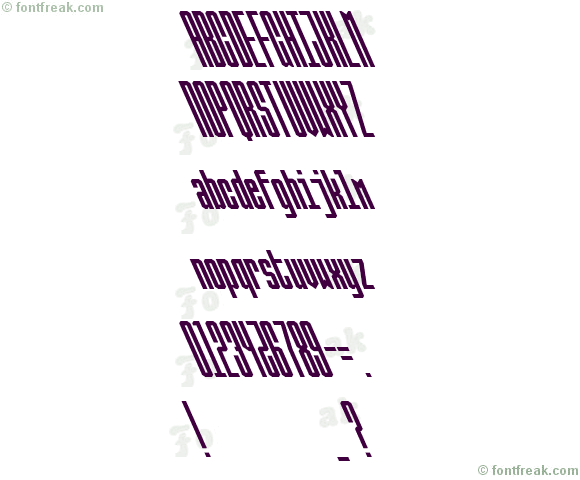
Ballbase Backslanted
Ballbase
Ballbase UltraItalic
Ballbase MegaUltraBackslanted
Ballbase UltraBackslanted
Ballbase MegaUltraItalic
Ballbase Italic
Ballbase Backslanted by Michel Martinsson is a striking display font that captivates with its dynamic ultraitalic design. This font belongs to the category of decorative typefaces, characterized by its unique backslanted posture that adds a sense of movement and energy to any text. The stroke weight is bold yet balanced, providing a solid presence that stands out in various applications. The font exhibits moderate contrast in its letterforms, ensuring readability while maintaining a visually engaging aesthetic. The spacing is well-considered, allowing each character to breathe without losing the cohesive flow of the text.
Best suited for eye-catching use cases, Ballbase Backslanted excels in areas such as movie posters, where its bold character can convey excitement and drama. It's also a fantastic choice for restaurant menus, adding flair and personality that can entice diners. Additionally, this font works well for product packaging, particularly for brands looking to convey a modern and energetic vibe. Graphic designers and content creators will find it ideal for event flyers, where attention-grabbing typography is crucial.
The target audience for Ballbase Backslanted includes graphic designers, small business owners, and anyone looking to add a unique touch to their projects. Whether you're crafting promotional materials or designing a logo, this font offers versatility and style.
What sets Ballbase Backslanted apart is its ability to blend boldness with elegance, making it not just a typeface but a statement piece. Its distinctive slant and robust design invite creativity, encouraging users to experiment with layout and composition. For those interested in exploring its potential, a Ballbase Backslanted font free download is available, making it accessible for all your design needs.